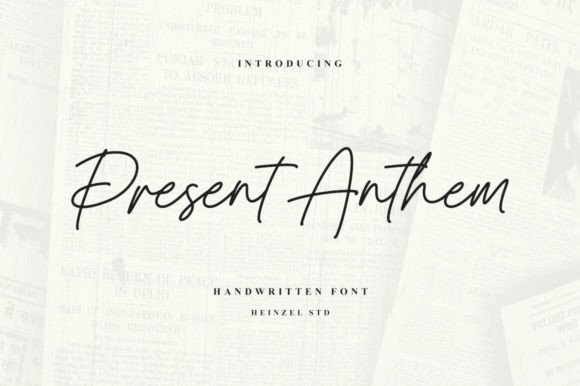
Dive into the world of impeccable calligraphy with Present Anthem Font, the ultimate handwritten script font, meticulously crafted to add a touch of sophistication to your creative projects. Experience the allure of this modern masterpiece, where elegance dances with charm, making it the perfect companion for your Cricut Vinyl projects.
With Present Anthem Font, you hold the key to unlocking a world of endless possibilities. Whether you're designing captivating wedding invitations, expressing gratitude with heartfelt thank you cards, or sharing words of wisdom through enchanting quotes, this font will elevate your designs to new heights. Its timeless style seamlessly complements logos, branding, and business cards, leaving a lasting impression on your audience.
Unleash your creativity and captivate your social media followers with visually stunning posts, creating a magnetic pull that draws them into your world. Engage your readers with captivating magazine articles and marketing materials, leaving them spellbound by the allure of your words. Present Anthem Font transcends the mundane, transforming ordinary designs into breathtaking masterpieces.
Embrace the allure of Present Anthem Font and embark on a creative journey like no other. Its incredibly distinct style effortlessly commands attention, making it the perfect choice for those seeking to make a statement. Whether you're a seasoned designer or just starting your creative adventure, this font will guide you towards greatness, empowering you to create designs that resonate with your audience.